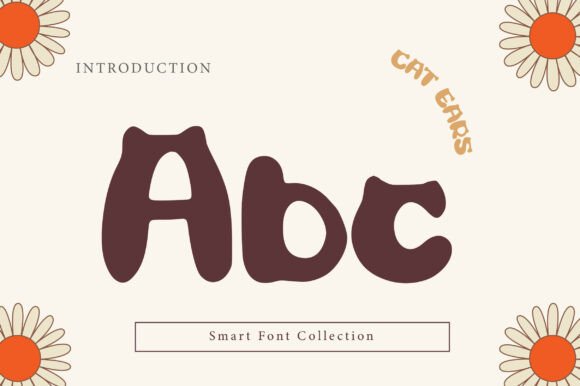
The Purr-fect Typography Solution: Unlocking the Magic of Cat Ears Font
Have you ever sat down with a blank page and a blank mind, searching for the perfect font to bring your design to life? I know I have. And then, suddenly, a spark of creativity strikes – you envision a playful, whimsical design that captures the hearts of your audience. That’s exactly what happens when you discover the Cat Ears Font, a delightful display font that exudes warmth and personality.
This charming font is designed to add a touch of fun and whimsy to your designs, making it perfect for kid-friendly projects, kawaii themes, and cheerful branding. With its soft, rounded style and thick strokes, Cat Ears Font is not only visually appealing but also highly readable. Whether you’re creating children’s book covers, toy packaging, or social media posts, this font is sure to bring a smile to your audience’s faces.
- Unique Characteristics: The font features adorable cat ear designs that can be adjusted to fit any word or phrase, creating a playful and whimsical effect.
Designer Review: Cat Ears Font
Overall, I’d say the Cat Ears Font is a quirky and fun addition to any project. Here’s what works well:
- ✨ The font’s unique design is sure to capture attention and add a touch of whimsy to any project.
- ✨ The font’s versatility allows it to be used in a variety of contexts, from playful logos to whimsical illustrations.
- ✨ The font’s consistency is well-executed, with each letterform and symbol maintaining a cohesive aesthetic.
- ⚠️ The font’s unique design may not be to everyone’s taste, and some users may find it too playful or distracting.
- ⚠️ The font’s character set may not be comprehensive, which could limit its usability in certain contexts.
- ⚠️ The font may not be suitable for projects where a more professional or serious tone is required.
Overall, I think the Cat Ears Font is a great choice for projects that require a lighthearted or playful touch. However, it’s essential to carefully consider the project’s goals and target audience before using this font.
Some common use cases for Cat Ears Font include:
- Creating cute and playful designs for social media or marketing materials.
- Adding a whimsical touch to wedding invitations or party decorations.
- Using as a novelty font for blog posts or articles.